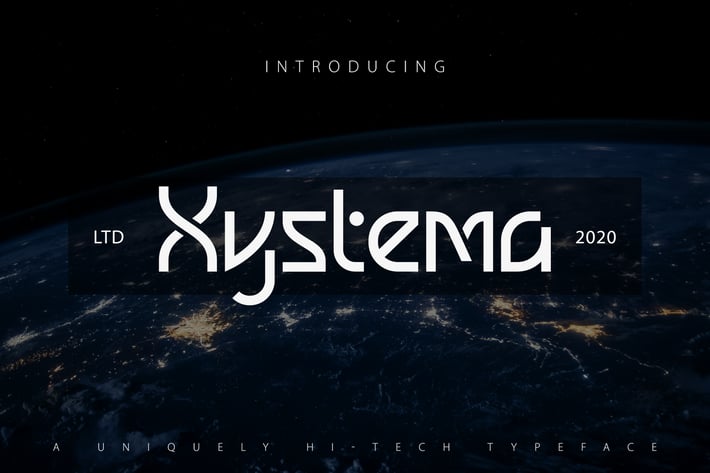
Xystema | Uniquely Hi-Tech Typeface
Xystema | Uniquely Hi-Tech Typeface with a calligraphy style, So beautiful on invitation like greeting cards, branding materials, business cards, quotes, posters, and more!